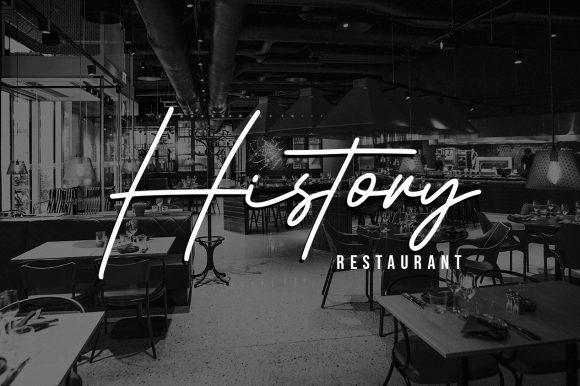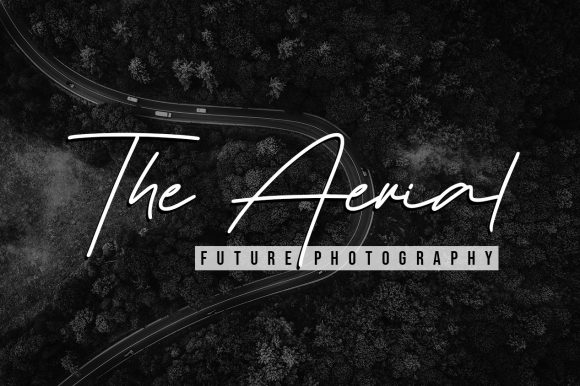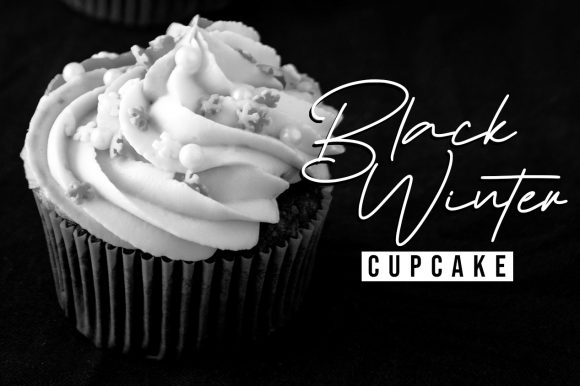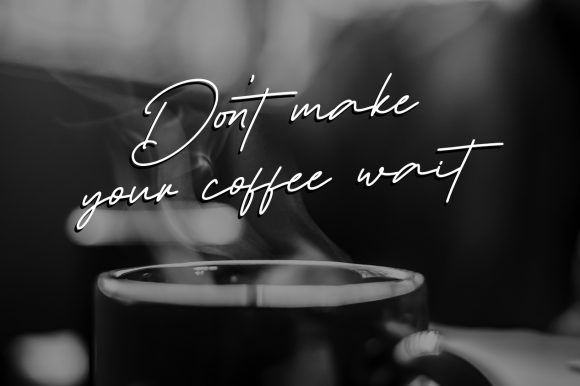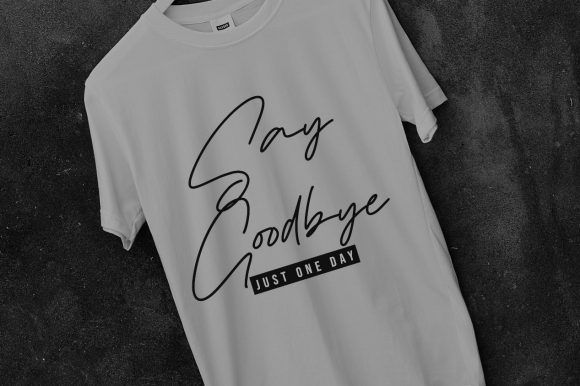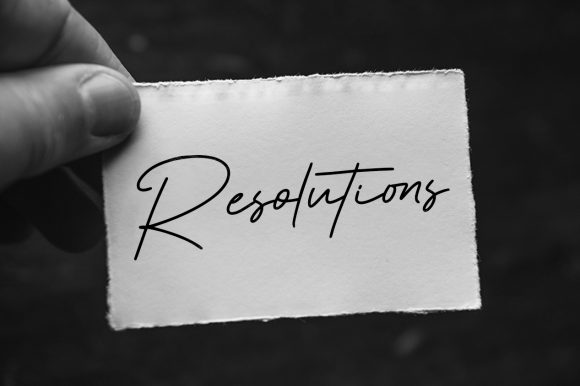
Introduction to Pollaroid Font
Have you ever been working on a creative project, pouring your heart and soul into it, only to realize that the right font is missing to bring it all together? For designers, this is a common dilemma. But what if you could find the perfect font to elevate your design and make it truly stand out? That’s where the Pollaroid Font comes in – a stylish and delicate script font that’s sure to add a touch of elegance to any design.
This high-quality font boasts a clean, thin, and smooth vibe that’s perfect for adding a professional touch to your design. With its transparent background and free download option, it’s a valuable resource for designers looking to take their creative projects to the next level.
Whether you’re working on a branding project, a brochure, or a website, the Pollaroid Font is an excellent choice. Its versatility and aesthetic appeal make it a must-have in any designer’s toolkit, and with its free download option, you can start using it right away.
Pollaroid Font
- High-quality, unique font design ideal for creative projects
- Transparent background for seamless integration with design elements
- Includes a comprehensive character set with Latin and Cyrillic alphabets
- Perfect design resource for graphic designers, artists, and creatives
Honest Review: Pollaroid Font
I recently came across the Pollaroid Font and was intrigued by its unique aesthetic. As a designer, I’m always on the lookout for high-quality, free design resources to enhance my creative projects. The Pollaroid Font definitely fits the bill.
One of the standout features of this font is its transparent background, which makes it incredibly versatile for use in various design contexts. I love how it can be used for a wide range of creative projects, from digital graphics to print materials.
Here are some of the things that work well with the Pollaroid Font:
- High-quality design: The font is well-crafted and looks great at various sizes and resolutions.
- Transparency: The transparent background is a huge plus, making it easy to use in complex design compositions.
However, I do have a few minor quibbles:
- ⚠️ Limited character set: The font only includes a limited set of characters, which may be a drawback for some designers.
- ⚠️ Not suitable for all projects: While the font is great for many creative projects, it may not be the best choice for formal or business-related designs.
Overall, I’m impressed with the Pollaroid Font and think it’s a great addition to any designer’s toolkit. It’s a high-quality, free design resource that’s perfect for a wide range of creative projects.
Pollaroid Font
Tips for Getting the Most Out of Pollaroid Font
To get the most out of the Pollaroid Font, experiment with different font sizes, colors, and combinations to create a unique look that suits your design needs.
Common Use Cases for Pollaroid Font
The Pollaroid Font is perfect for creative projects that require a high-quality, unique font. Some common use cases include:
- Graphic design projects
Can I customize the Pollaroid Font for my specific design needs?
Yes, the Pollaroid Font is highly customizable, allowing you to adjust font sizes, colors, and styles to suit your creative project’s requirements. You can also use font editing software to modify the font’s characteristics and create unique variations.